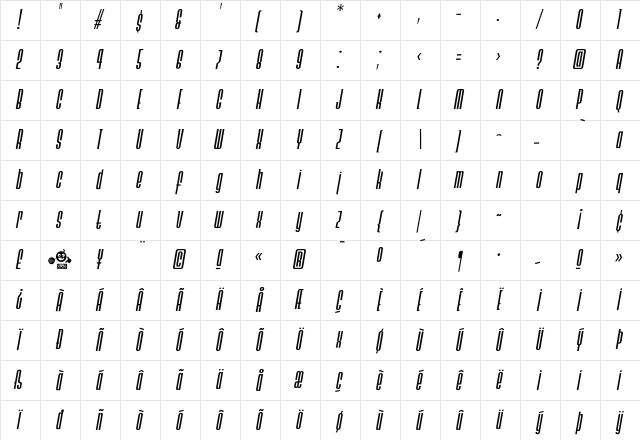
Ainsdale is a composed and adaptable typeface that performs quietly and consistently across a wide range of design contexts. The slanted form adds forward momentum and visual energy.
Pro Tip: Use Ainsdale for emphasis, pull quotes, and subheadings where its slanted energy can add rhythm to the layout.